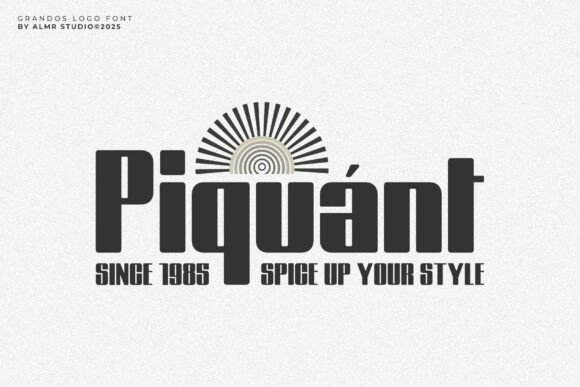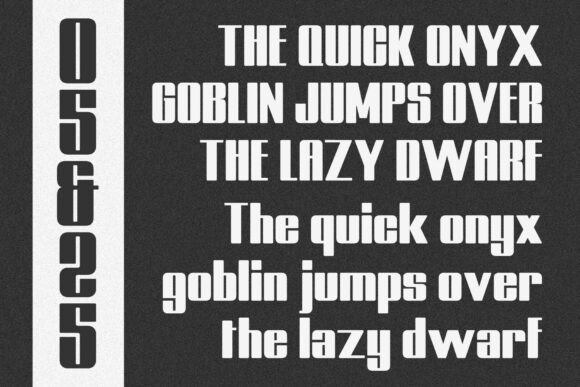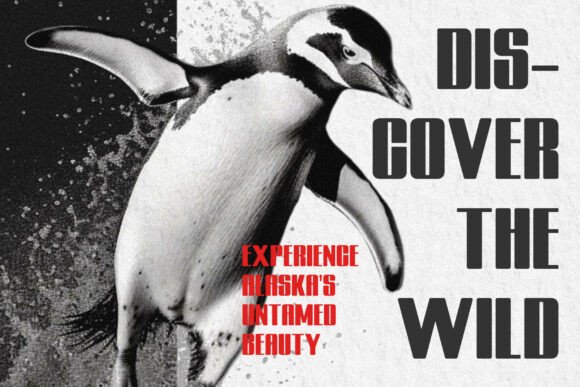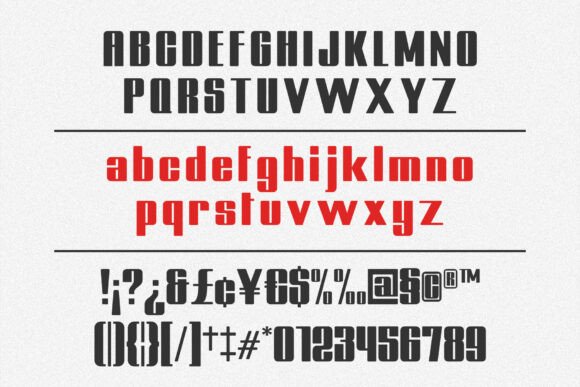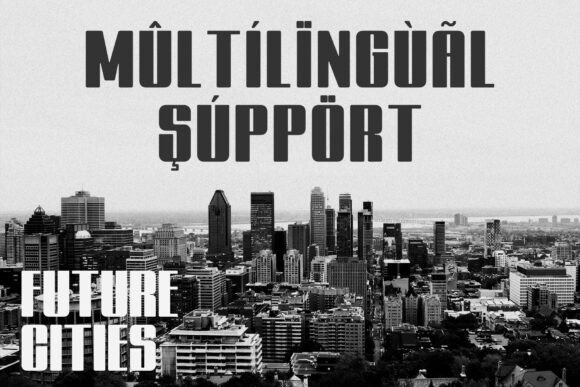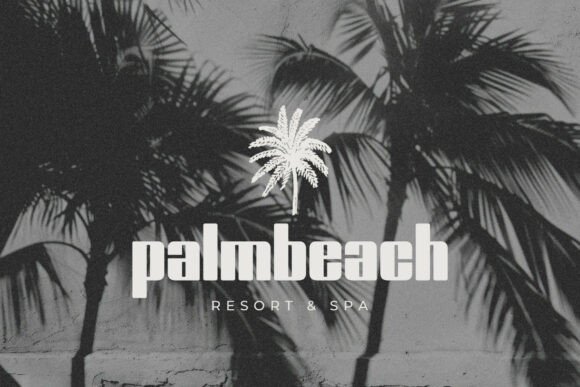
Introducing Grandos: The Modern Sans Serif Font You Need
A Personal Review of Grandos
- ✨ **Clean and modern aesthetic**: Grandos has a crisp, contemporary feel that’s perfect for branding, logos, and advertising.
- ✅ **Highly versatile**: This font can be used for everything from social media posts to product packaging, and even wedding designs.
- 💡 **Excellent legibility**: Grandos is easy to read, even at small sizes, making it ideal for body text or captions.
- 🎨 **Plenty of creative possibilities**: With OpenType features, glyphs, and stylistic alternates, you can experiment with different looks and styles.
While Grandos is an excellent font, there are a few things to keep in mind:
- 🤔 **Limited italic options**: The italic styles are a bit limited, but this doesn’t detract from the overall versatility of the font.
- ⚠️ **Not ideal for body text in print**: While Grandos is great for digital use, it may not be the best choice for lengthy print articles or books.
The Story Behind Grandos
Grandos was designed with the modern creative in mind. Inspired by the latest design trends and technologies, this font is perfect for anyone looking to elevate their brand or project. While the actual design process is shrouded in mystery, it’s clear that the designer had a passion for clean lines, simplicity, and versatility.
Q: Does Grandos come with any special features?
A: Yes, Grandos includes OpenType features, glyphs, and stylistic alternates, giving you plenty of creative possibilities.
Q: Is Grandos easy to read?
A: Absolutely! Grandos has excellent legibility, even at small sizes, making it suitable for body text or captions.